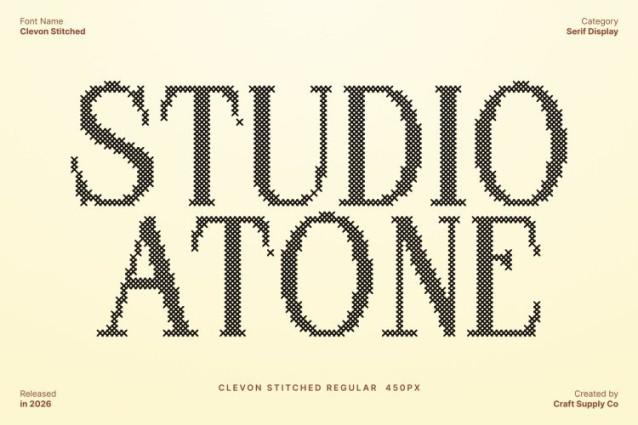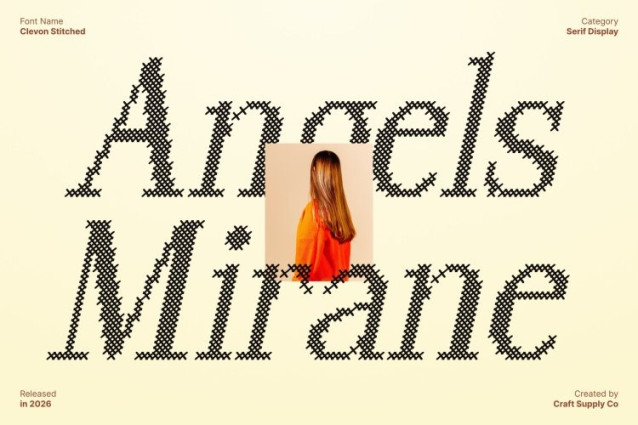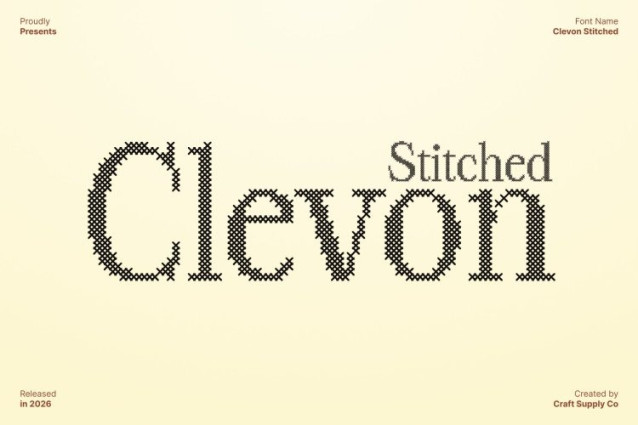
Clevon Stitched Font
Clevon Stitched Font – This is a striking high-contrast serif font defined by authentic shapes and refined proportions. Its sharp transitions between thick and thin strokes create a sophisticated and confident appearance, suitable for both impactful display settings and elegant body text. Enhanced with a stitched style inspired by thread sewn or embroidered on fabric, this version introduces warmth and tactile depth to its bold typographic presence.
Embossed Stitch Detail with Nostalgic Warmth
Featuring a distinctive cross-shaped stitch pattern, this font delivers an embossed and structured texture that gives each letter a fabric-like, handcrafted feel. This stitched detail adds a classic, nostalgic, relaxed, and warm impression softening the strong contrast while preserving the font’s refined elegance.
Bold Presence with Timeless Appeal
With its commanding structure and timeless design, stands out across posters, websites, editorial layouts, invitations, and branding materials. The combination of dramatic contrast and stitched texture creates a memorable visual identity that feels both luxurious and personal.
Versatile Fusion of Tradition and Modernity
Blending traditional serif foundations with a modern sensibility and handcrafted detailing, offers exceptional versatility. It transitions effortlessly from eye-catching headlines to readable body text, making it ideal for branding, packaging, fashion logos, craft-themed designs, school projects, and sophisticated editorial work. The result is a typeface that balances classic elegance, contemporary style, and warm authenticity in every design.